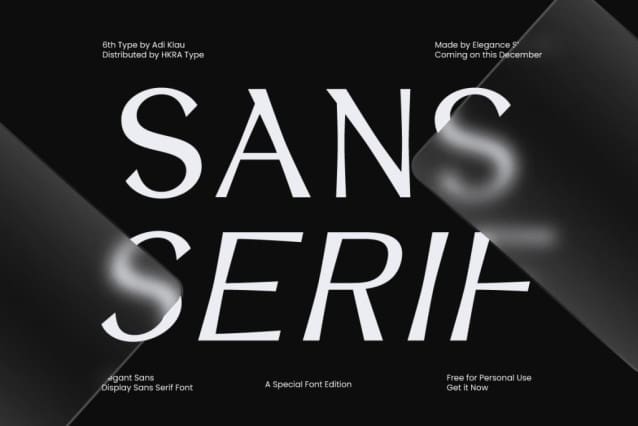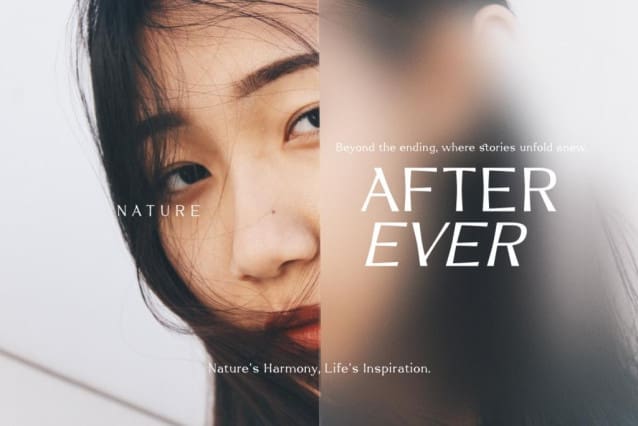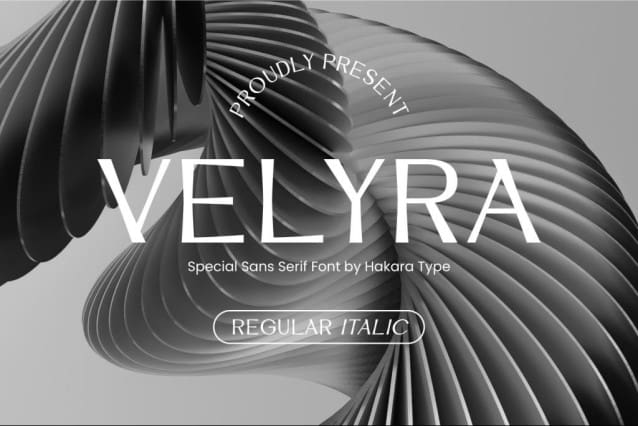
Velyra Font
Velyra Font, is a humanist sans serif display font with elegant shape, making it luxury and eye-catching. Velyra comes in regular and italic versions.
Velyra is perfect for branding projects, logo, wedding designs, social media posts, advertisements, product packaging, product designs, label, photography, watermark, invitation, stationery, and more.